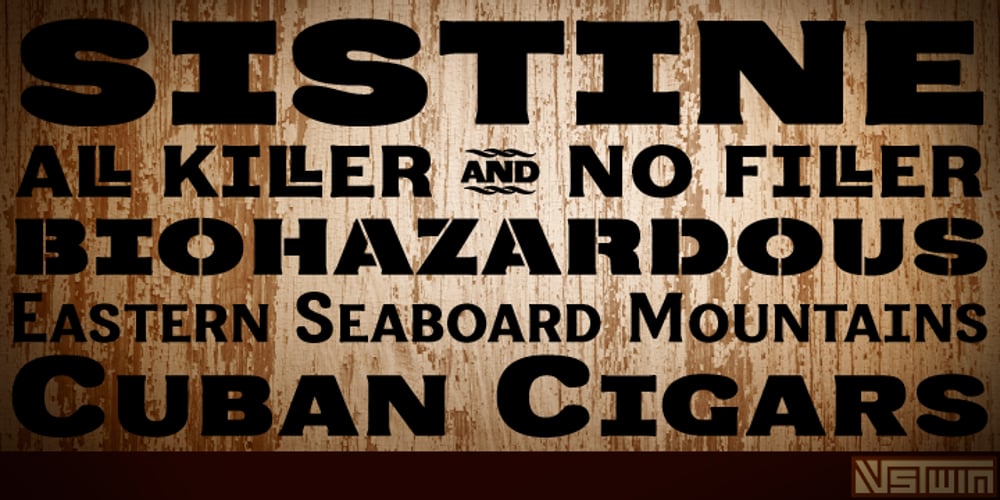
Sistine
Sistine font
Sistine Font Family was designed by Brian J. Bonislawsky, Brian Jaramillo and published by VersusTwin. Sistine contains 5 styles and family package options. Sink your teeth into the heavy-hitter Sistine Family consisting of Regular to Extra Black weights along with an extra black stencil style. They are a tough and industrious set of typefaces suited perfectly for headlines and poster design, and so much more. The Opentype ligatures feature swaps in special THE & AND (by typing a space before and after THE or AND in all capitals), as well as a double cap L option. Stylistic Alternates include a variant Q and R for all styles.